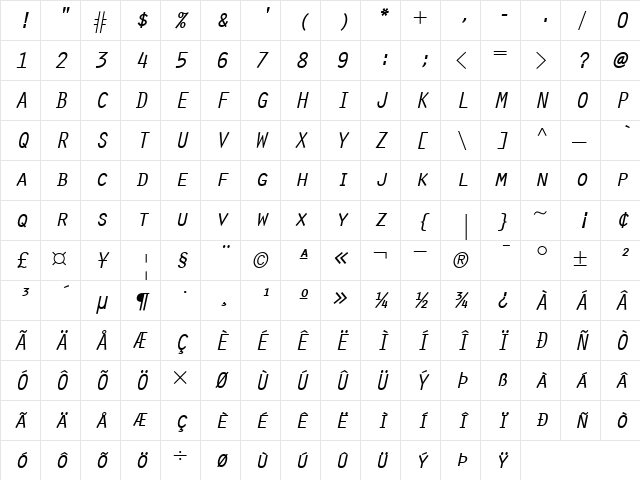
OratorSlanted RomanItalic
Design Context for OratorSlanted Typeface
OratorSlanted offers clean, dependable letterforms without strong stylistic allegiance, making it a practical choice for designers who need flexibility. Its italic angle brings a sense of urgency and motion to the letterforms.
Pro Tip: Try OratorSlanted for annotation and caption copy alongside an upright companion — the contrast in angle creates a dynamic but ordered typographic system.